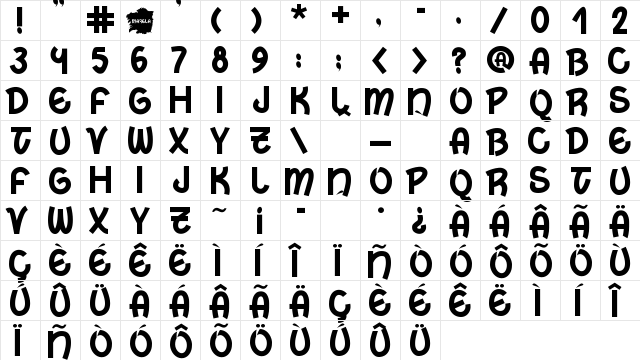
Marela Regular Font Preview
Marela Regular
Design Context for Marela Typeface
Marela is a composed and adaptable typeface that performs quietly and consistently across a wide range of design contexts.